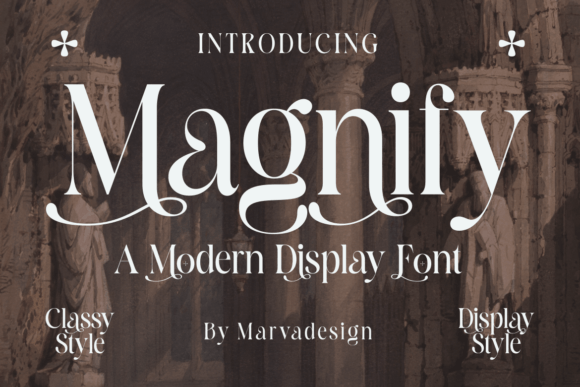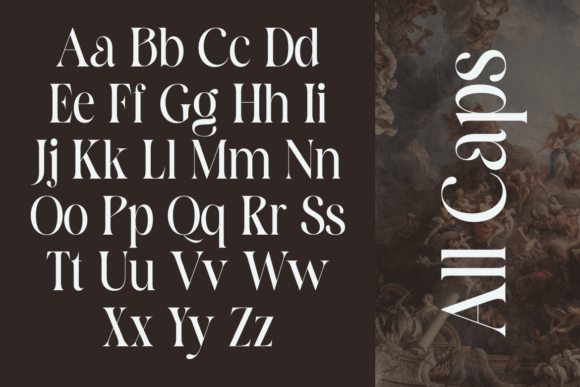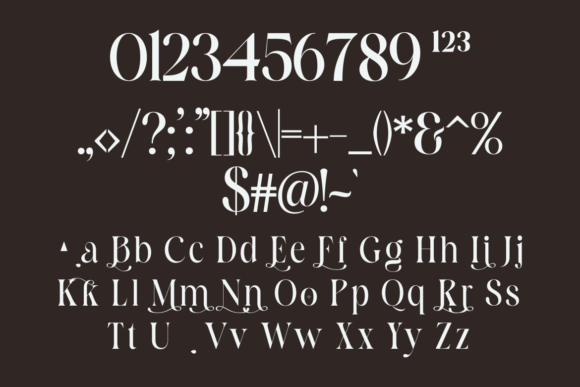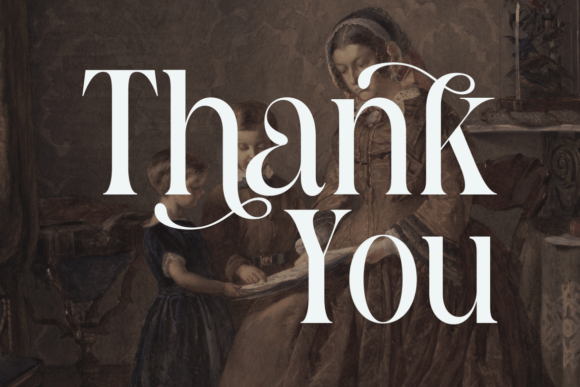
Magnify Font: Elegant & Modern Display Typography for Logo Design
About the Magnify Font
Elevate your designs with Magnify Font, a font that combines sophistication with readability. Magnify is a sleek and modern display font that brings a contemporary flair to your projects. With clean lines and a stylish design, it adds a touch of sophistication to any text. Whether you’re creating bold titles or eye-catching headers, Magnify’s modern aesthetic ensures a polished and professional look. Upgrade your design with this versatile font that effortlessly combines simplicity with a trendy edge.
Magnify excels as a headline font for projects requiring a bold, modern aesthetic. It’s ideal for branding applications, posters, and short impactful statements where its clean lines and sophisticated feel shine. However, its condensed nature makes it less suitable for body text or lengthy paragraphs; readability suffers at smaller sizes.
Consider pairing Magnify with a neutral sans-serif like Open Sans for body copy to maintain a contemporary feel, or a classic serif like Garamond for a touch of contrast and sophistication in more formal projects. For a playful twist, a rounded sans-serif like Lato could create a dynamic yet balanced design.
Its core personality is confident and contemporary, conveying a sense of sleek professionalism and modern energy. Brands aiming for a sophisticated, forward-thinking image will find Magnify an effective tool.
Magnify Font Usage Examples
Magnify Font Example